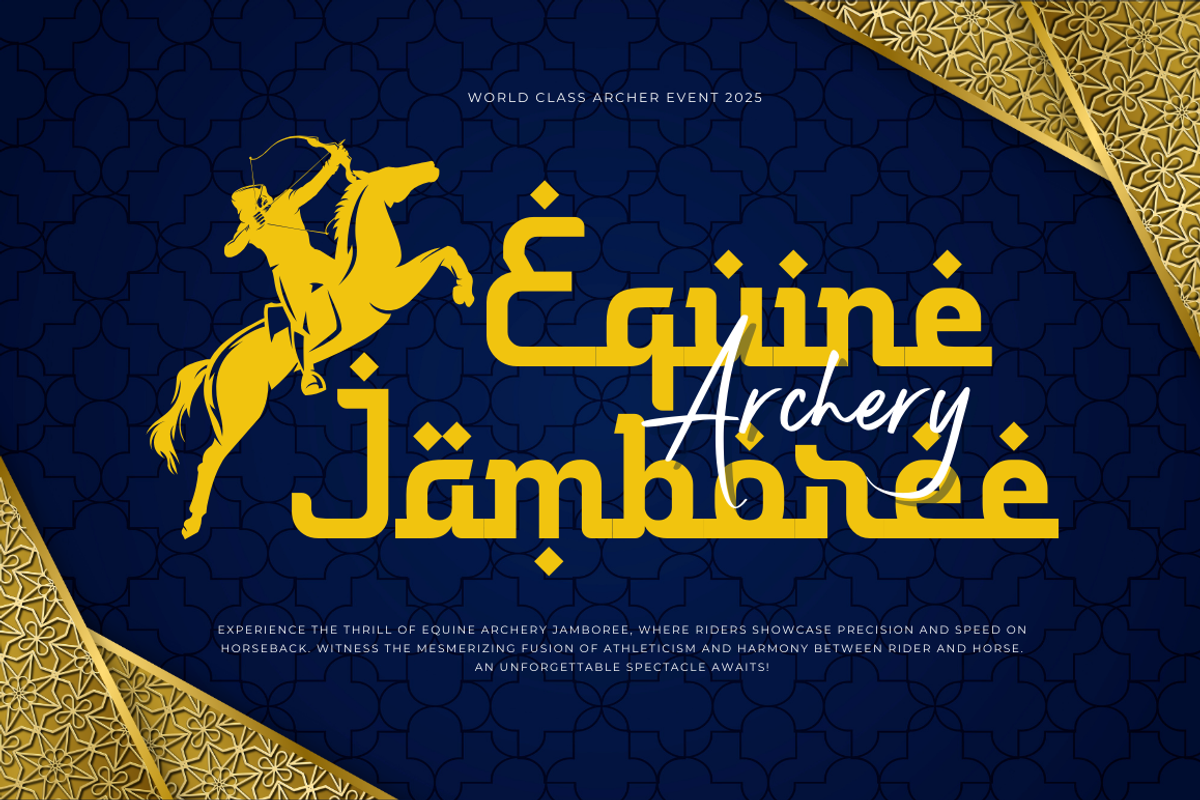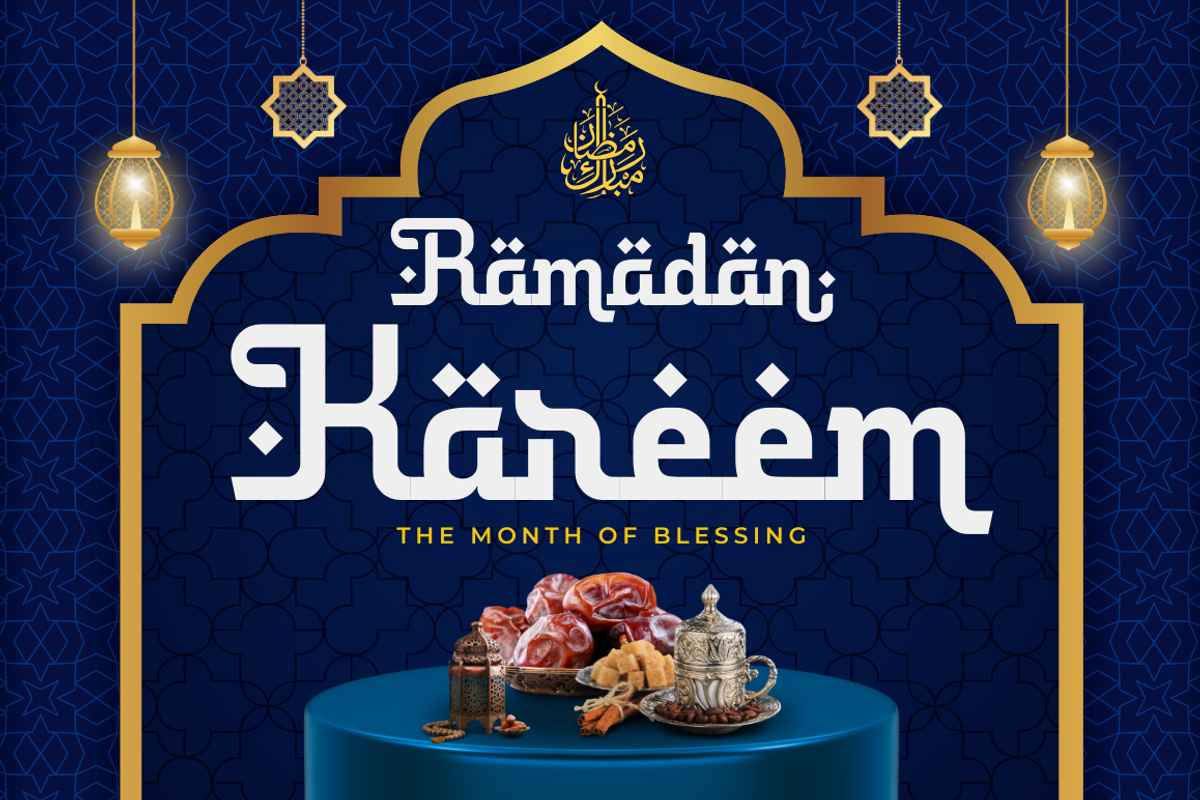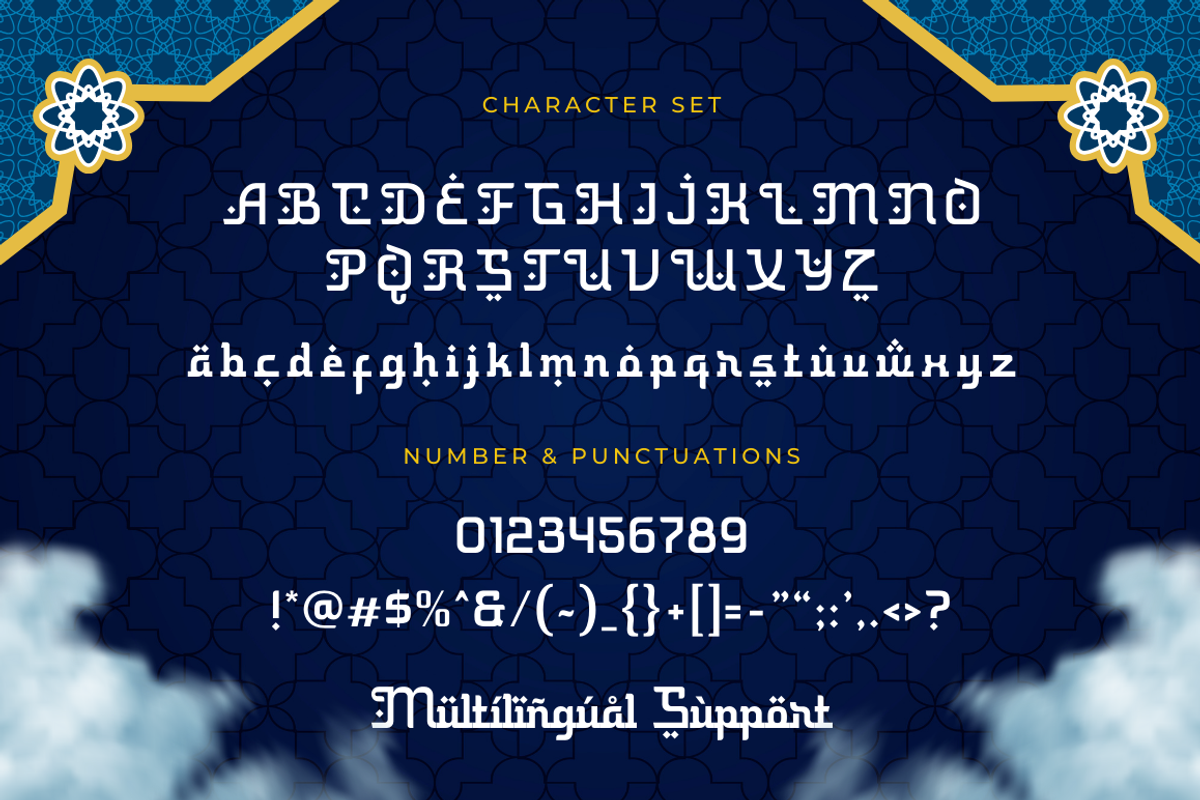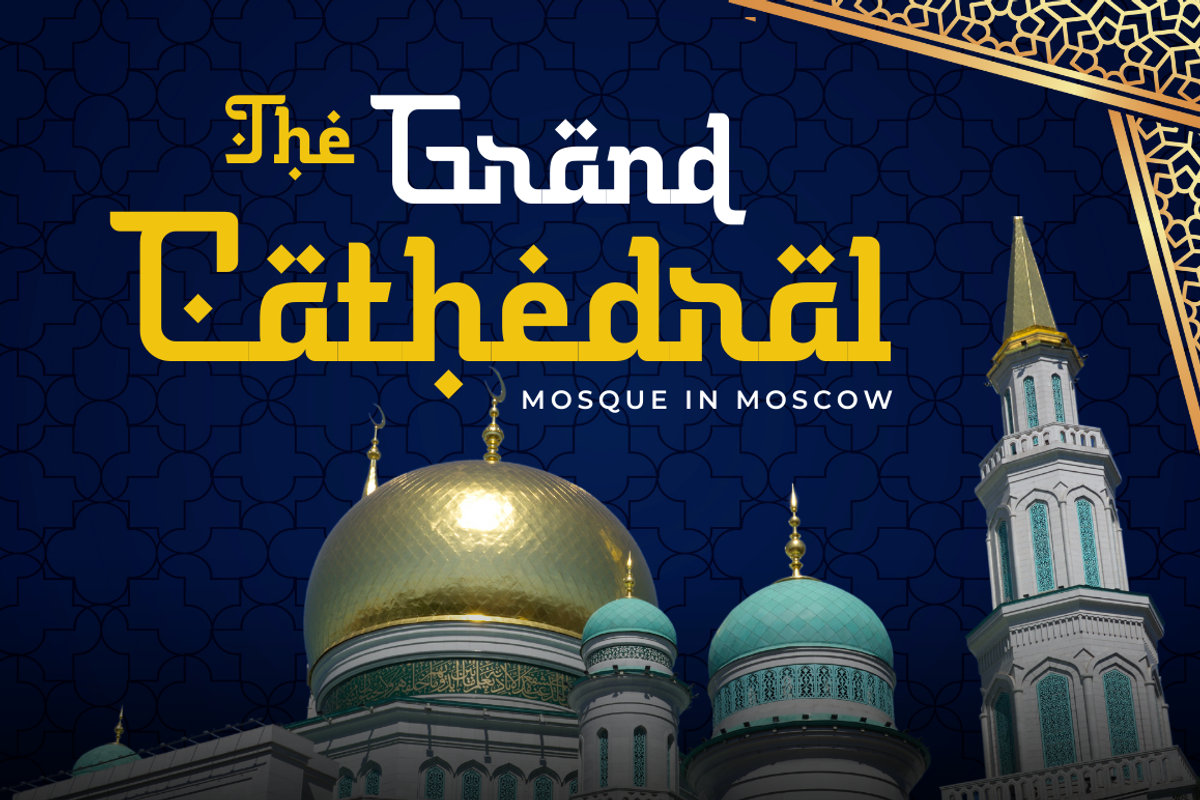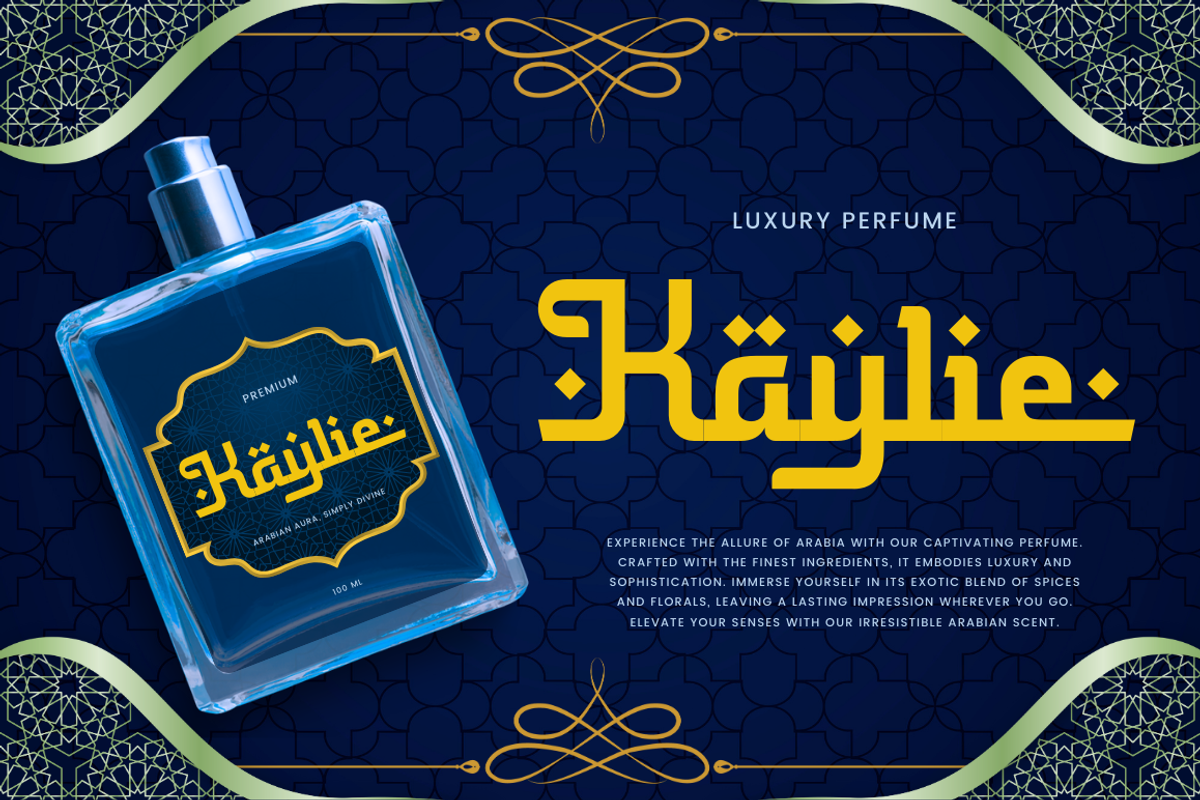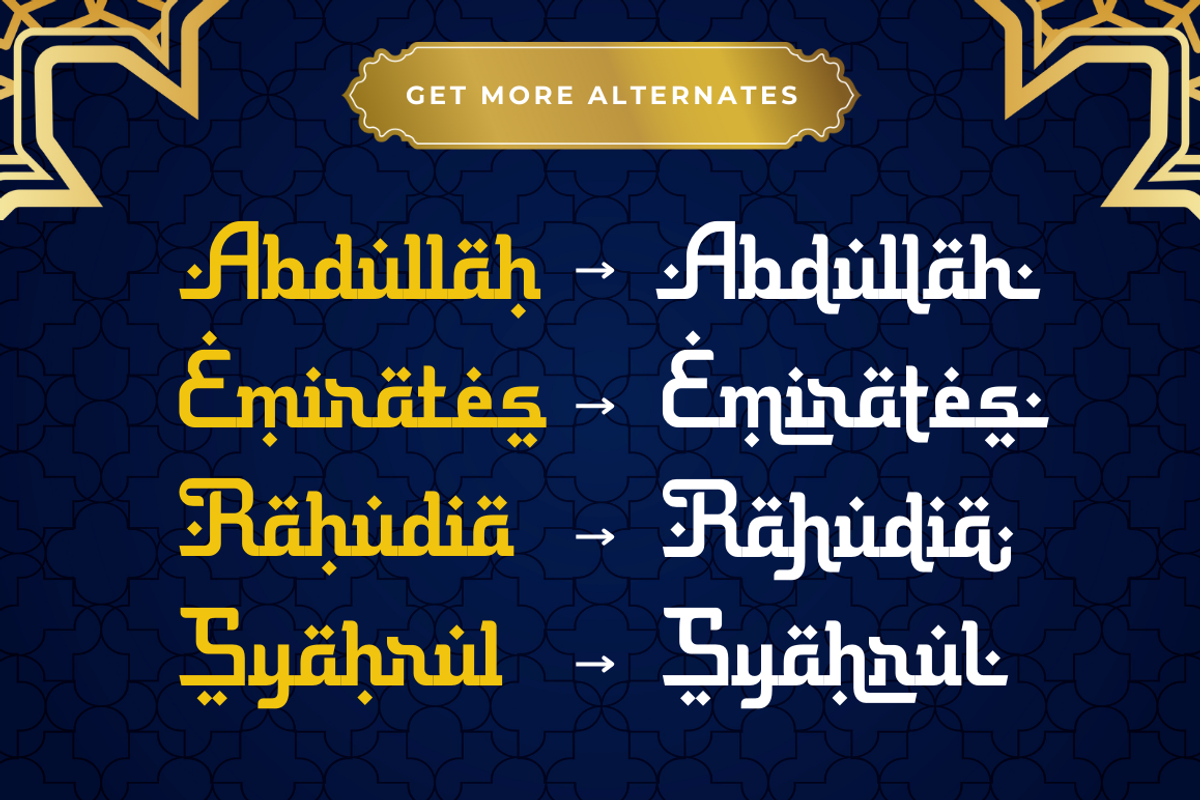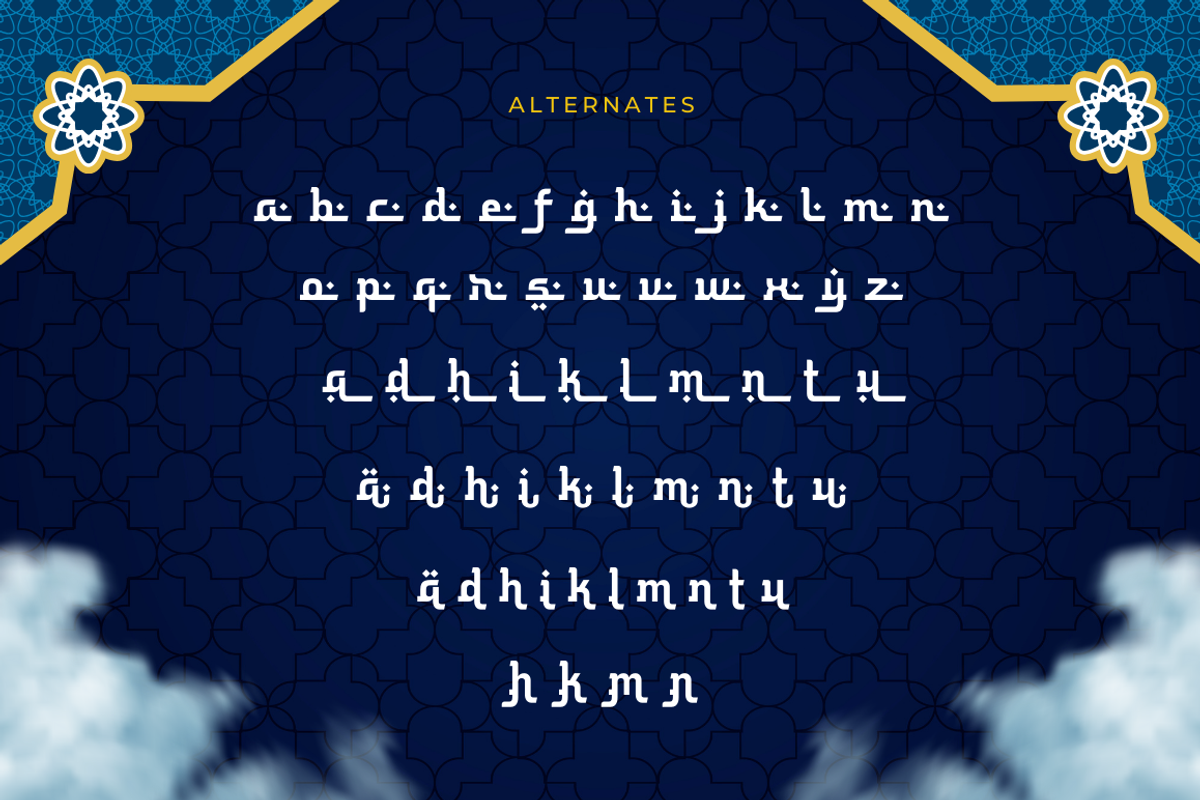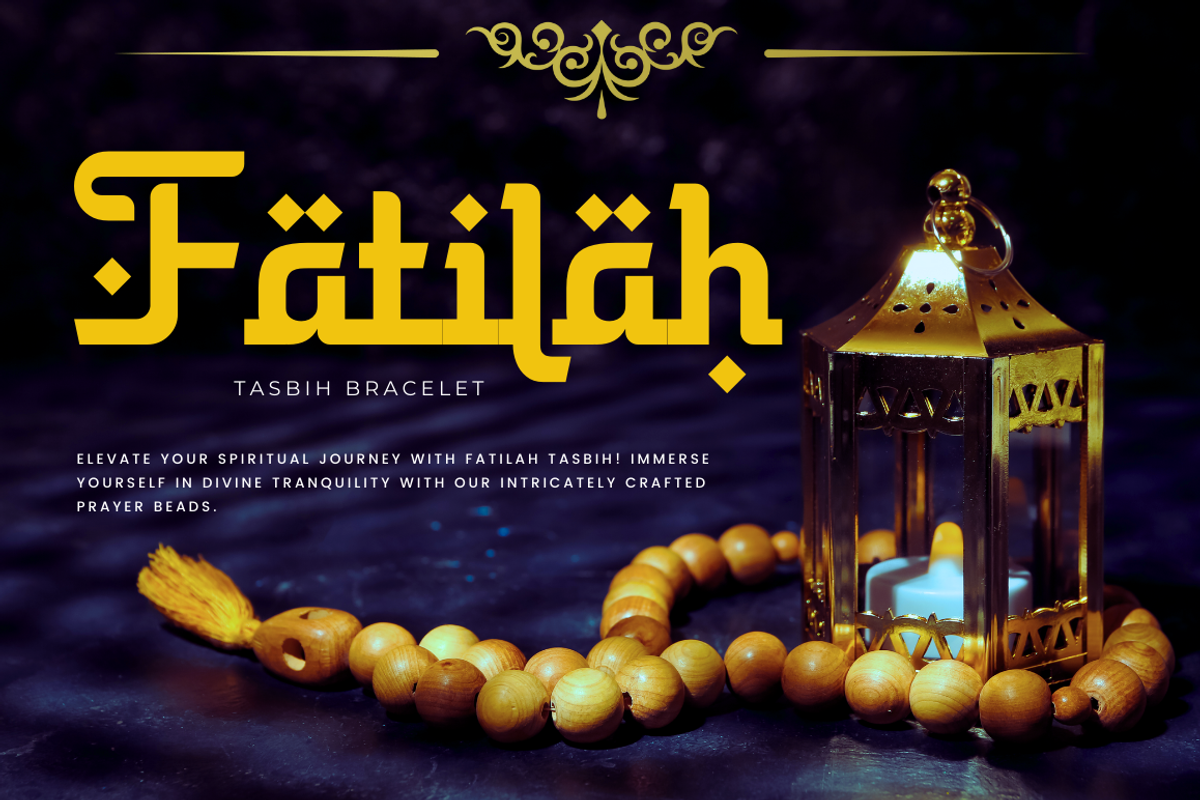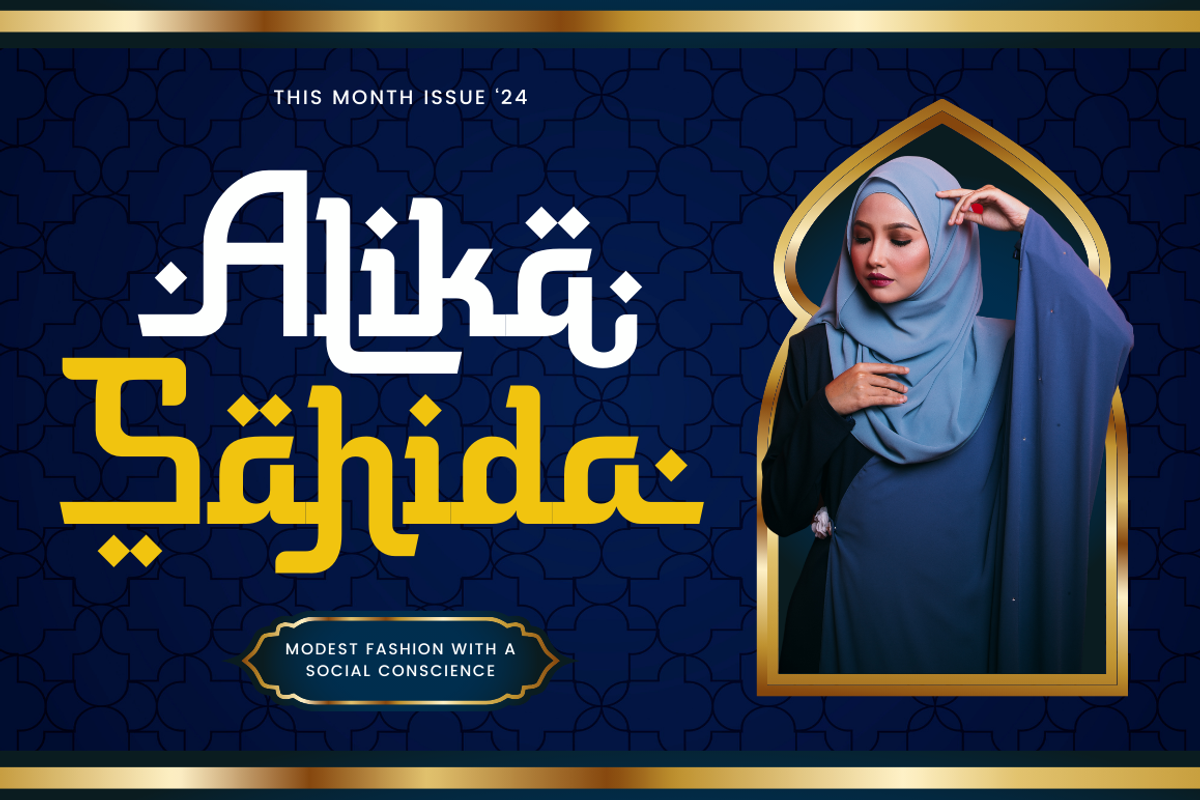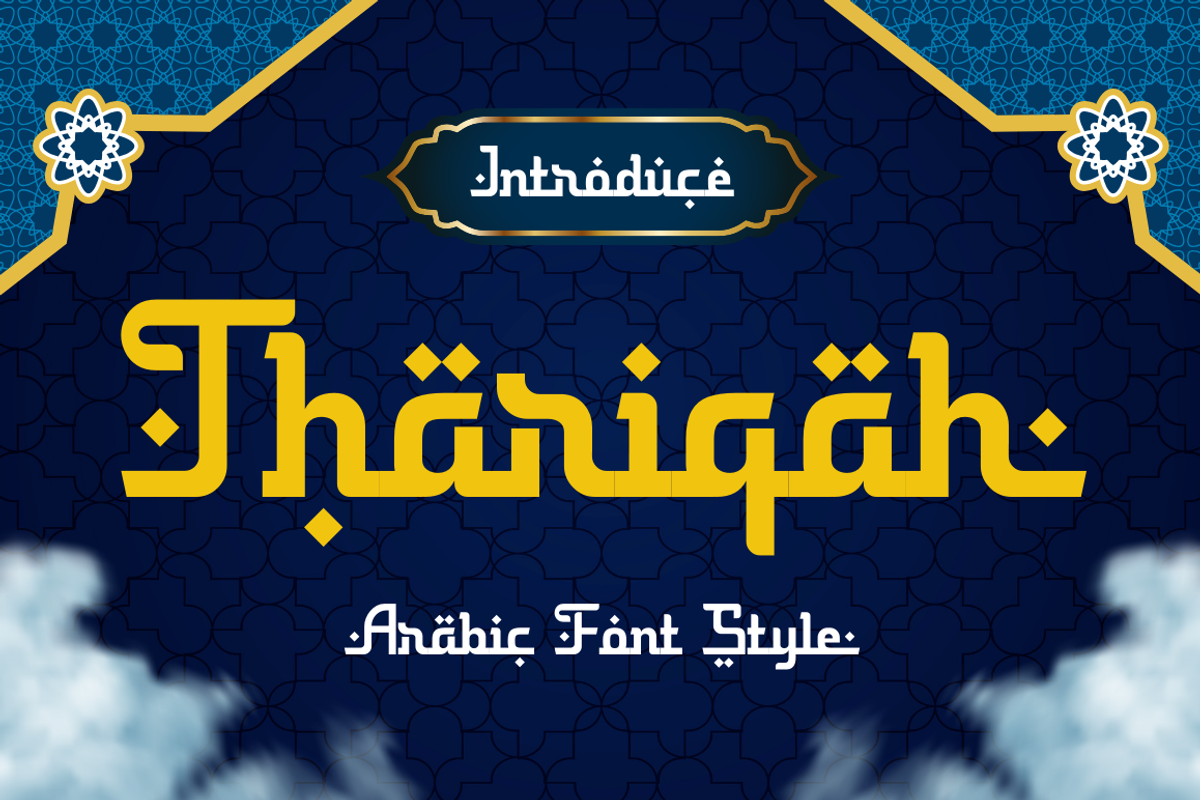
Thariqah – Arabic Font Style
Introducing “Thariqah,” a bold script font that beautifully blends Arabic calligraphy with modern boldness. With its strong, sweeping strokes and intricate details, this font captures the essence of Arabic script in a bold and impactful manner. Perfect for projects seeking a contemporary twist on traditional Arabic typography, such as branding, posters, or digital displays, “Thariqah” adds a touch of sophistication and cultural richness to your designs, making them stand out with a powerful and memorable presence.